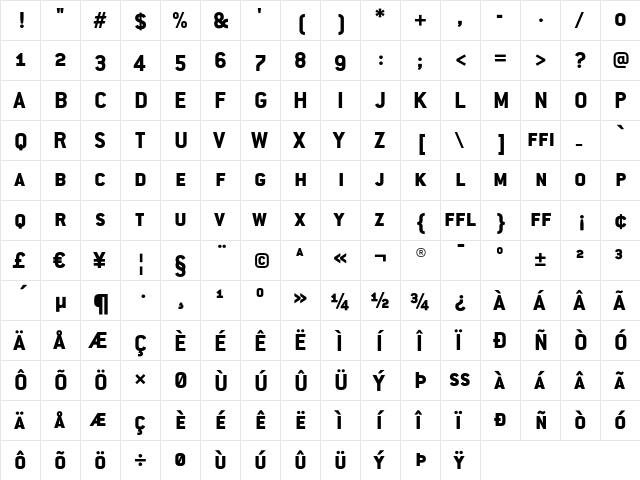
ConduitSCITC ExtraBold
Design Context for ConduitSCITC Typeface
ConduitSCITC is a composed and adaptable typeface that performs quietly and consistently across a wide range of design contexts. The heavy weight commands attention and anchors typographic hierarchies. Its narrow stance lets it pack a punch even in space-constrained designs.
Pro Tip: Use ConduitSCITC in both headline and body roles to test its range before committing to a single application.